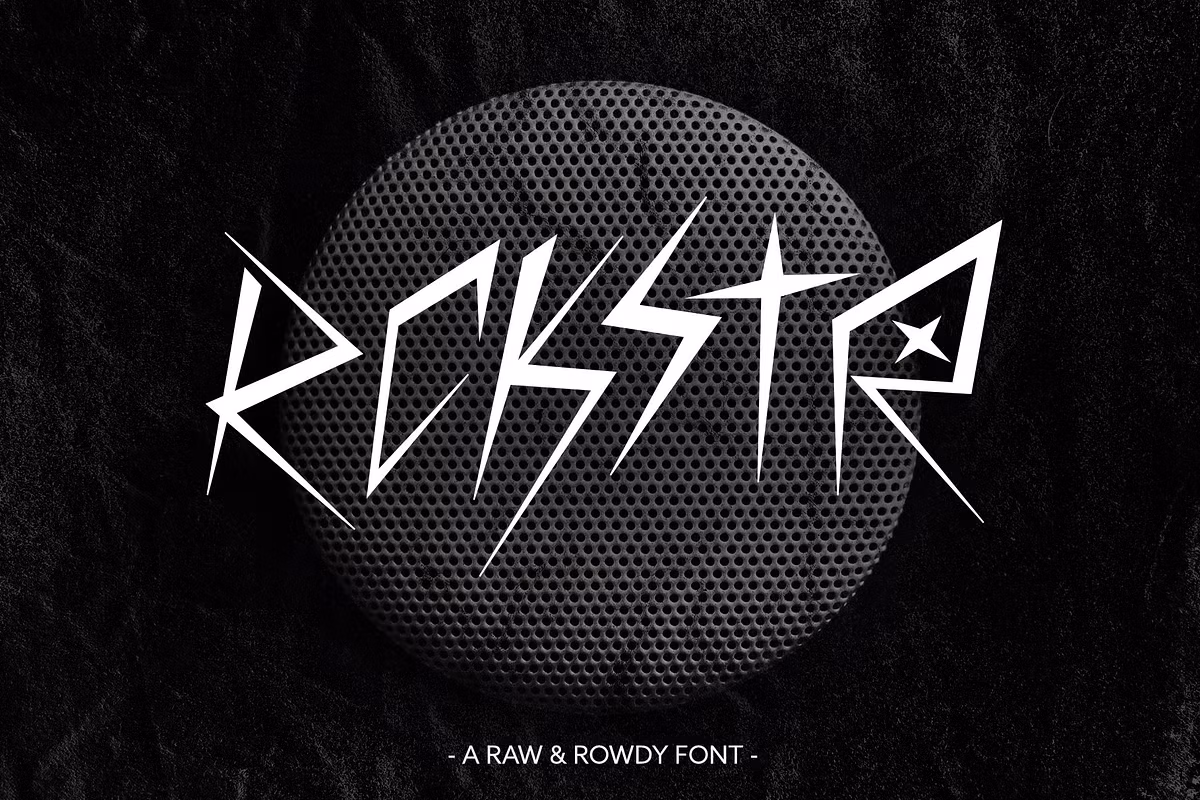
Rockstar Font Free Download is a bold and edgy display typeface that’s built to steal the spotlight. With its sharp lines, high-energy design, and rebellious attitude, Rockstar is perfect for music branding, concert posters, edgy apparel, YouTube thumbnails, and anything that needs a loud, unapologetic vibe.
Whether you're designing for a rock band, streetwear label, or grunge-inspired project, this font delivers power and personality. It screams confidence and creativity while remaining easy to read and versatile. Rockstar Font Free Download lets you explore its electrifying style in personal use before purchasing a commercial license.
Turn up the volume on your designs with Rockstar — the font that brings attitude, energy, and stage presence to every project.